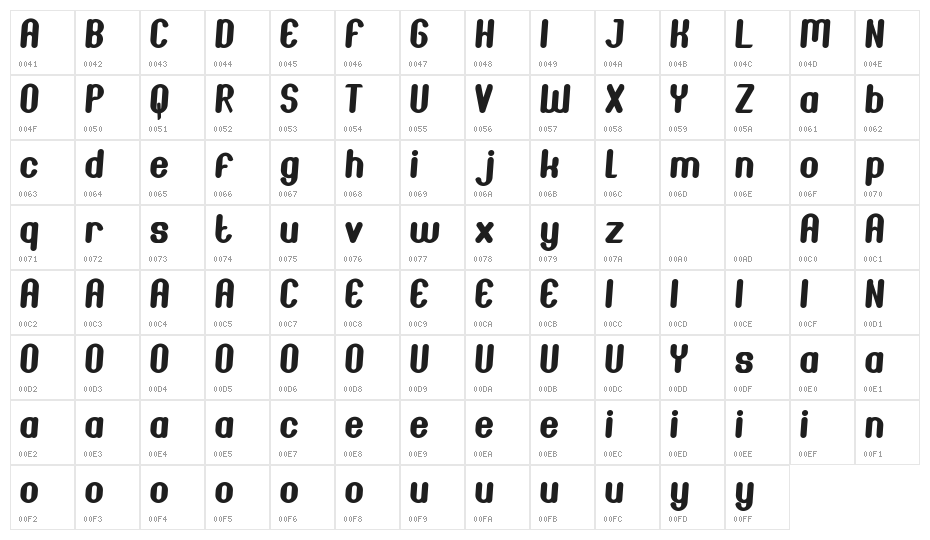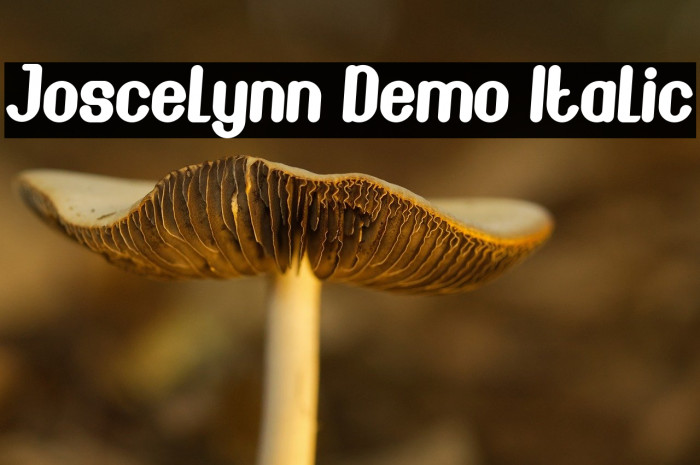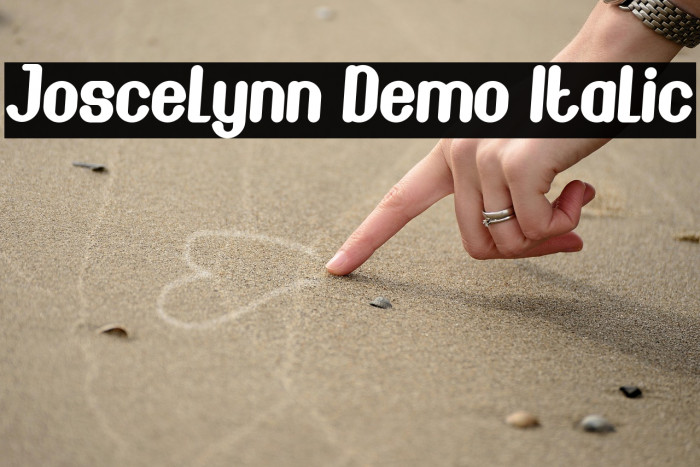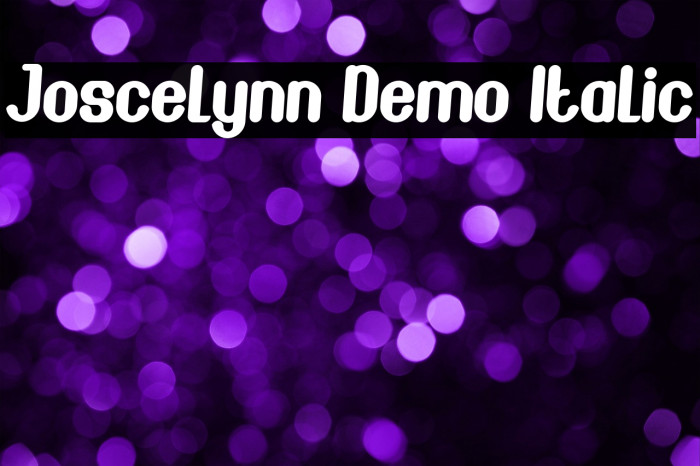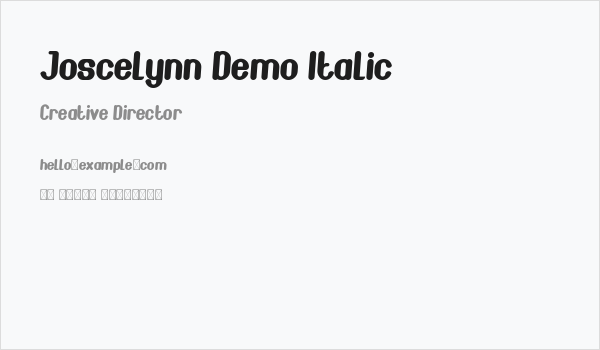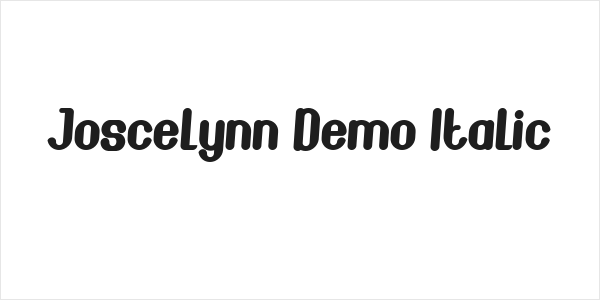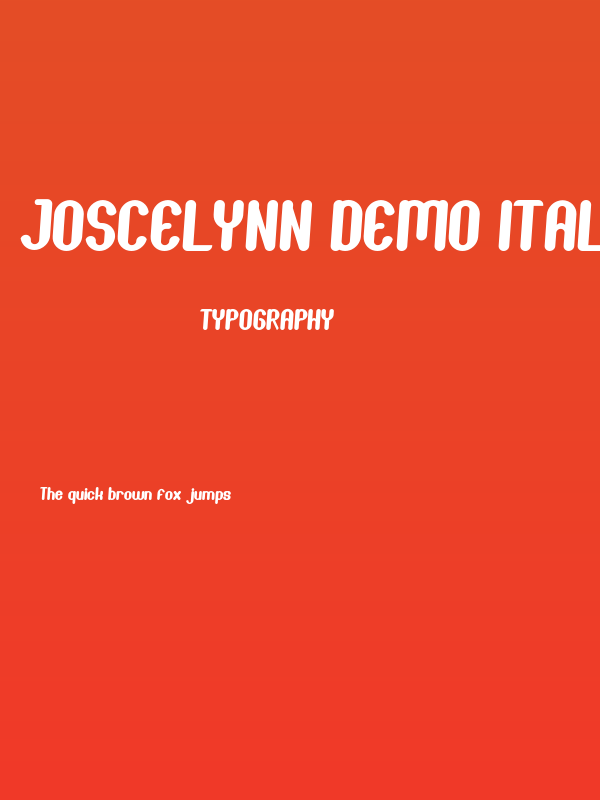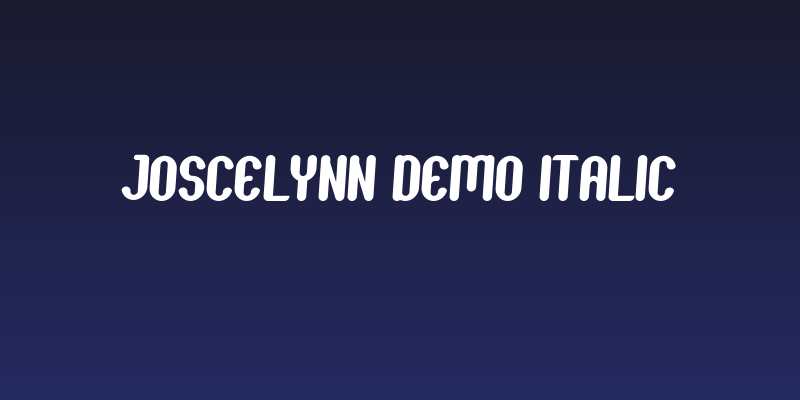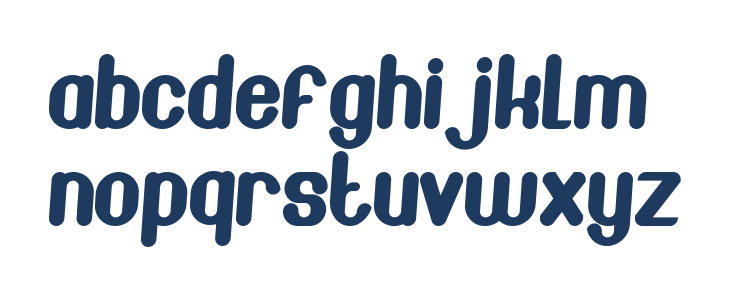
Joscelynn Demo Italic Font
Joscelynn Demo Italic Description
This font features a bold and playful style with a smooth, rounded appearance. The letters are characterized by their thick strokes and slightly condensed form, giving them a strong presence on the page. The uppercase and lowercase letters maintain a consistent design, with rounded edges and a slight slant that adds a touch of dynamism. The numerals and special characters follow the same design principles, ensuring uniformity across all glyphs. The overall look is modern and friendly, making it suitable for projects that require a casual yet impactful typeface.
Proposed ProjectsIdeal for branding, advertising, children's books, and playful design projects.